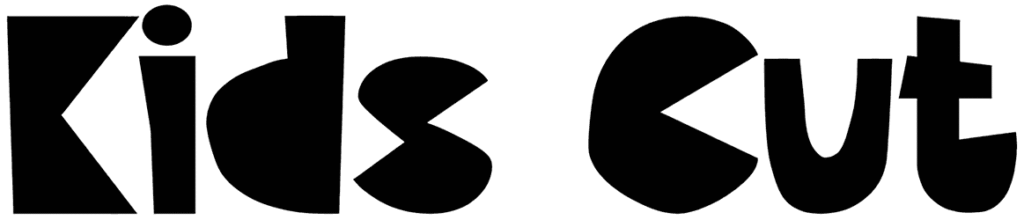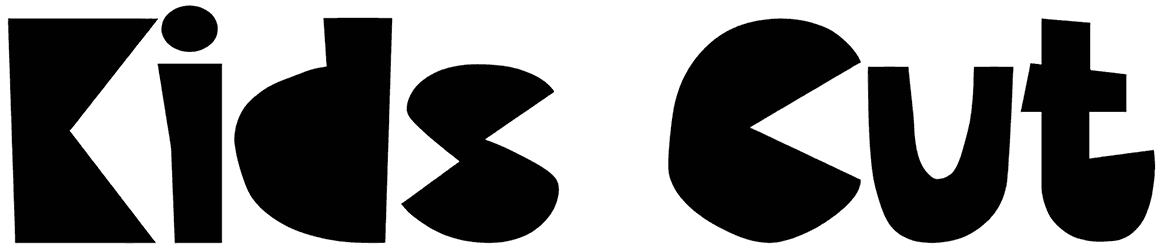
Kids Cut Font
Bring a funny, playful display to your upcoming work with Kids Cut, a cut out font that comes with a heavy, solid appearance to make your project eye-catching and memorable. It supports cute uppercase, lowercase, numbers, and necessary punctuation and can be a perfect choice for snack packaging, toy products, comic books, animation posters, or other children’s designs.